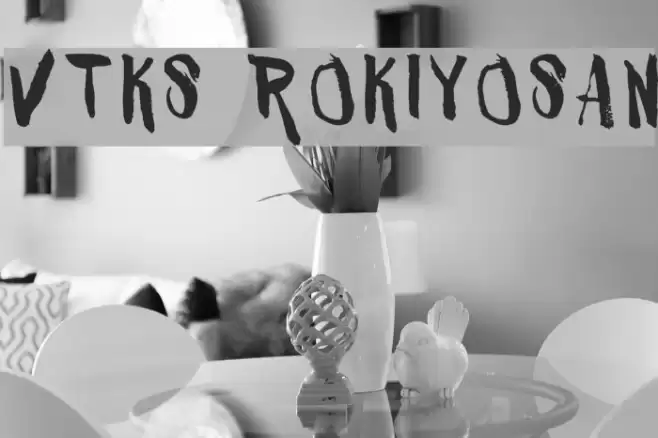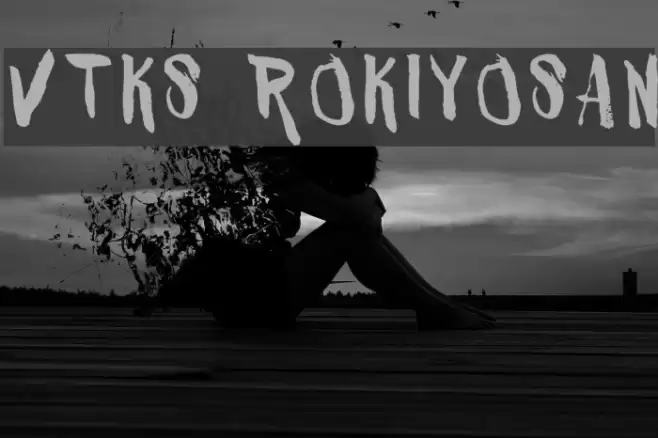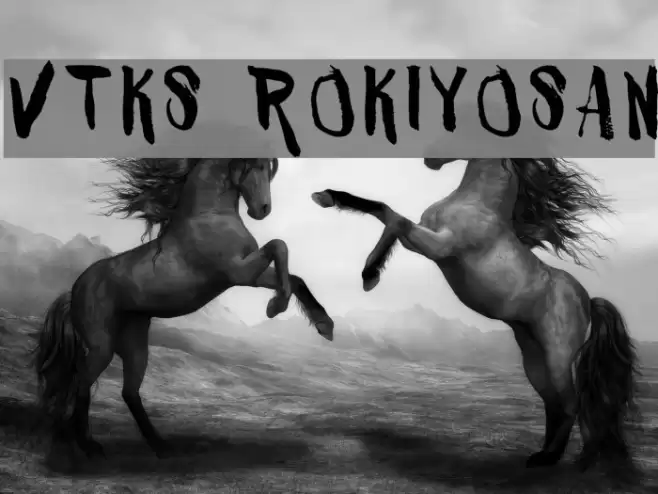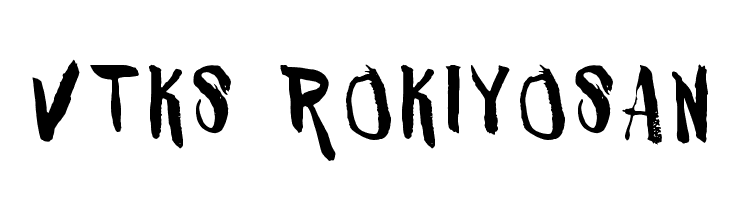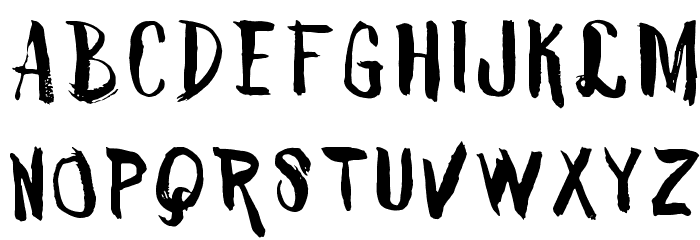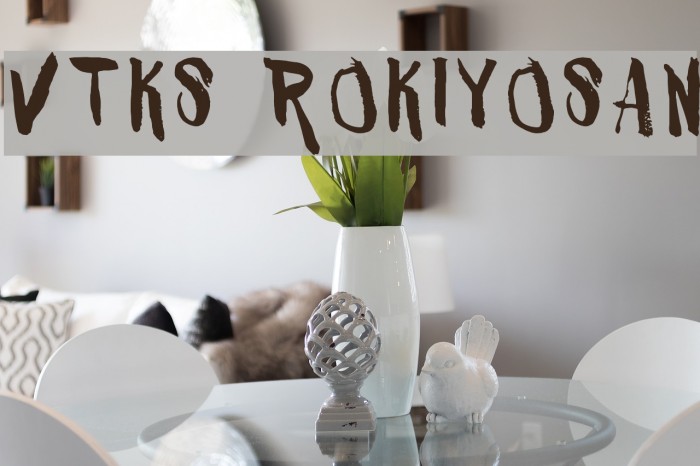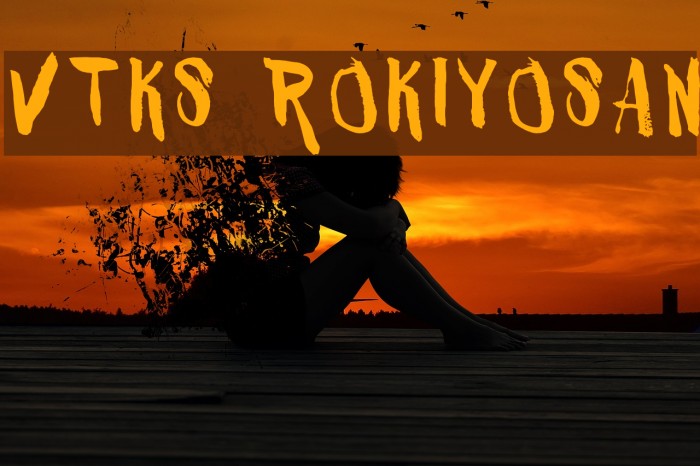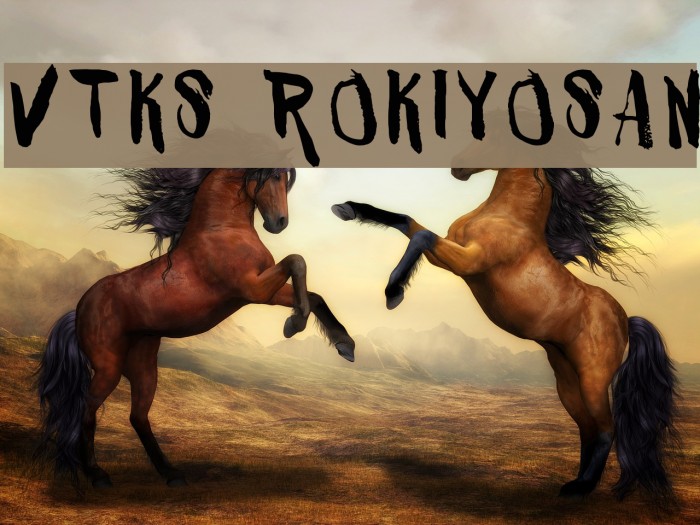
VTKS ROKIYOSAN Font
VTKS ROKIYOSAN Description
This font features a bold, brushstroke style that exudes a sense of energy and dynamism. The characters are crafted with a rough, hand-painted appearance, giving them a raw and artistic feel. The strokes vary in thickness, adding a sense of movement and fluidity to the text. The uppercase letters are particularly striking, with their bold presence and unique character shapes. This font is perfect for projects that require a strong visual impact and a creative, artistic touch.
A bold, brushstroke font with a dynamic and artistic style from Uncategorized fonts.
- Proposed Projects: Ideal for posters, album covers, branding, and any creative projects that need a bold and artistic flair.
- Overall Style: Artistic, Dynamic